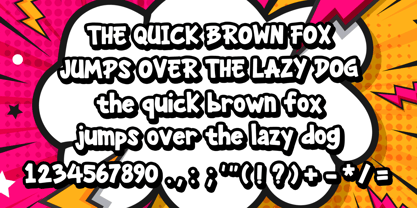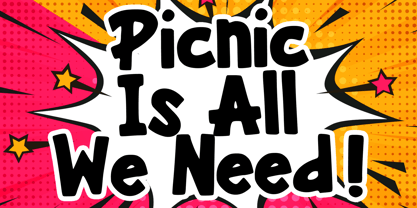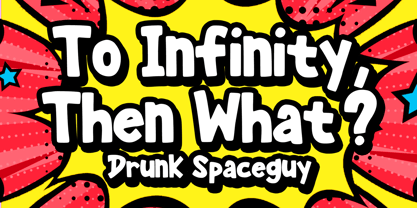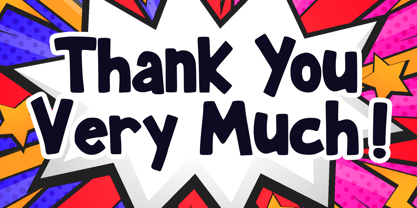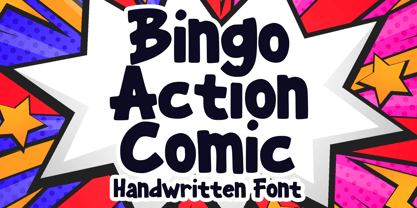
Bingo Action Comic
by Mvmet
The Bingo Action Comic Font Family was designed by Gabriel Valentinus and published by Mvmet. Bingo Action Comic contains 1 styles.
Introducing Bingo Action Comic, a vibrant and bold font designed to transform your creative projects into pieces filled with fun, adventure, and comic-style charisma. Ideal for a variety of uses, this font breathes life and energy into kids' book art, invigorates children's party décor, and adds a sense of playfulness to your greeting cards and stickers. Looking to make a statement? This font is perfect for posters and banners needing that vibrant, daring touch. Experience the joy and lively energy of Bingo Action Comic, and spark a world of delightful designs.
Designers: Gabriel Valentinus
Publisher: Mvmet
Foundry: Mvmet
Design Owner: Mvmet